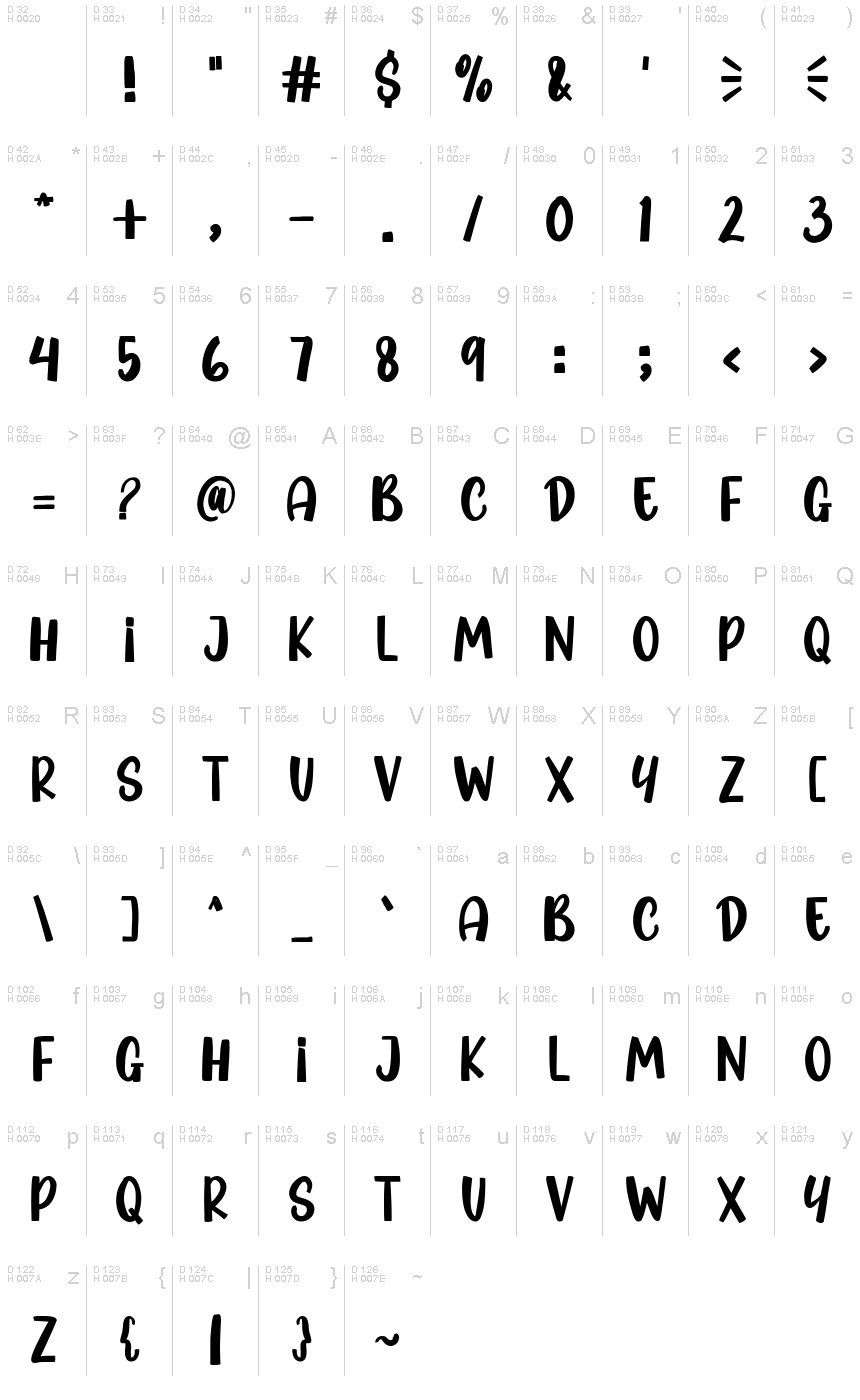
Dacon
The Dacon font exudes a captivating charm with its unique, cartoon-inspired aesthetic. Featuring bold, expressive letterforms and dynamic flourishes, this display typeface immediately captures the eye and evokes a sense of playfulness.
Dacon's versatility allows it to shine in various design contexts, from energetic children's content to bold, attention-grabbing advertisements. Its playful personality makes it an excellent choice for projects that aim to convey a fun, approachable, and lighthearted tone, whether it's designing engaging social media graphics, crafting whimsical event materials, or bringing a touch of personality to product packaging.